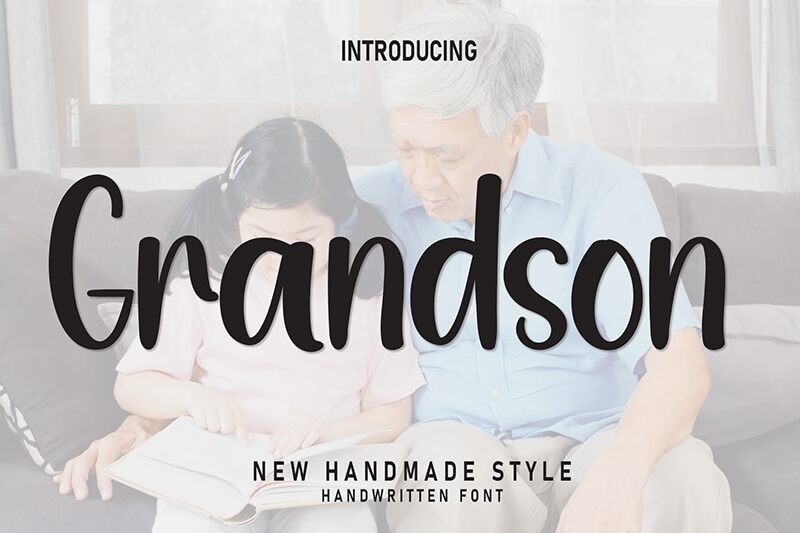
Grandson
Grandson font is a beautiful brush font designed in condensed style. Its smooth strokes allow for organic, expressive, and mostly modern designs. These features along with its exceptional readability make it an excellent choice for paragraphs and medium-length texts.
As this is a script font, it shines when used in logotypes, packaging design, label design, apparel designs or even on tattoos! The designer Andi Moz also invites users to integrate the font in posters, quotes printouts on T-shirts or mugs for your store (note that the correct license has to be obtained beforehand). Itʼs free of course; happy designing!